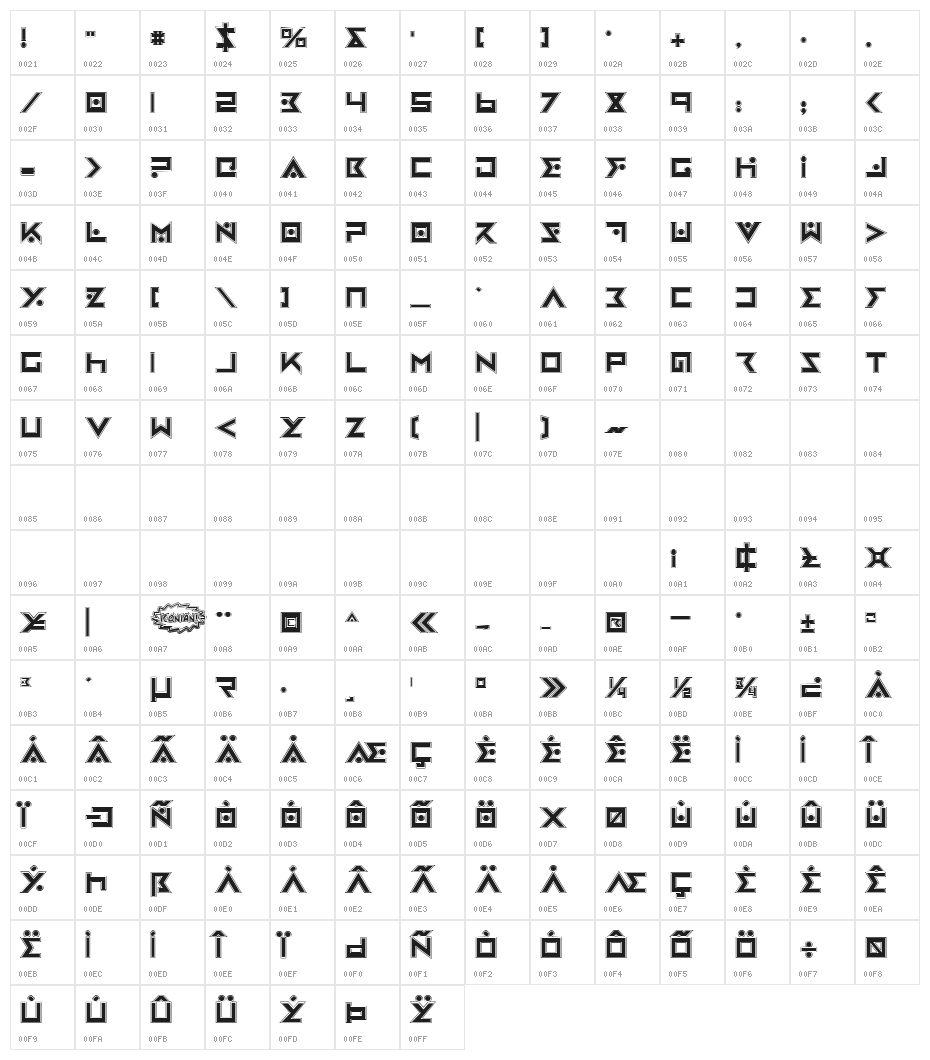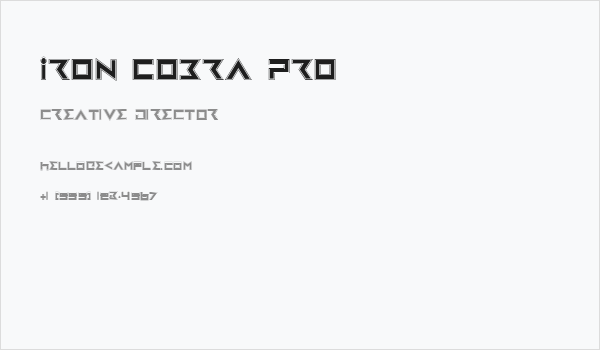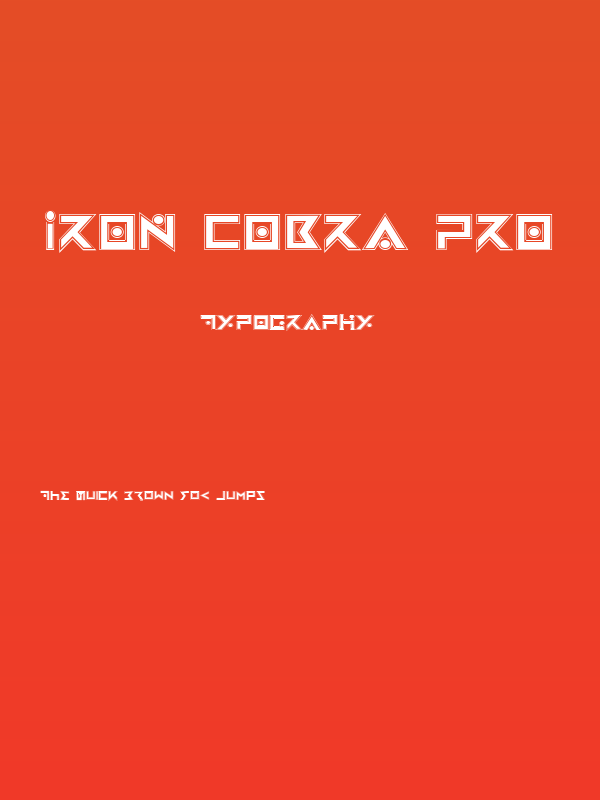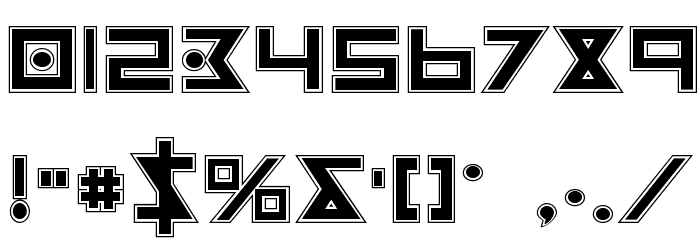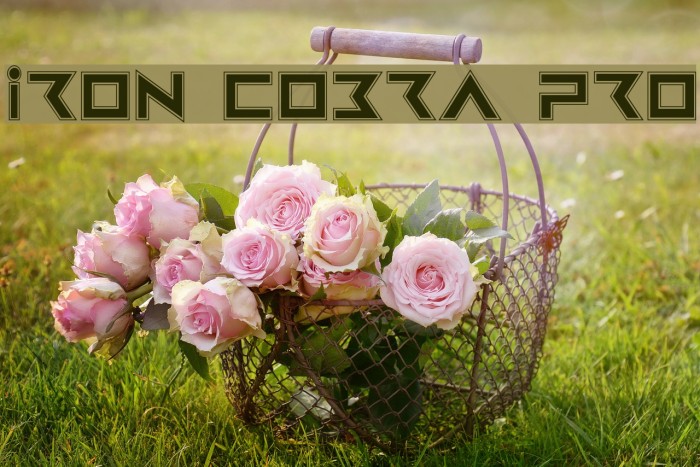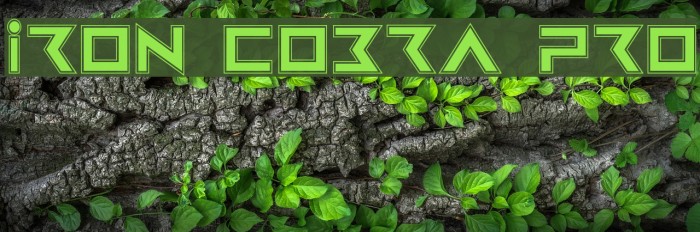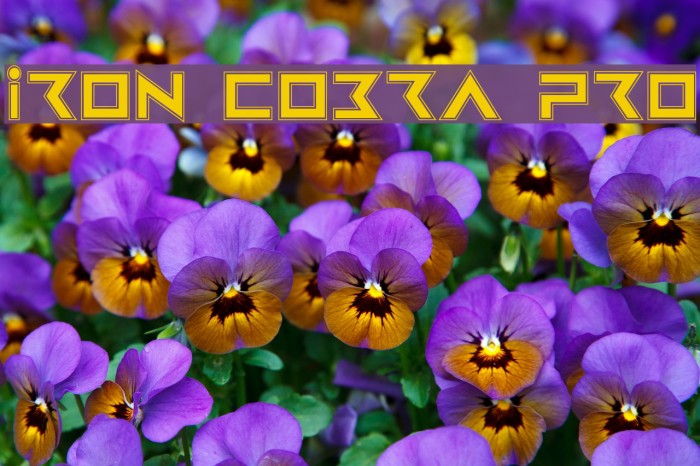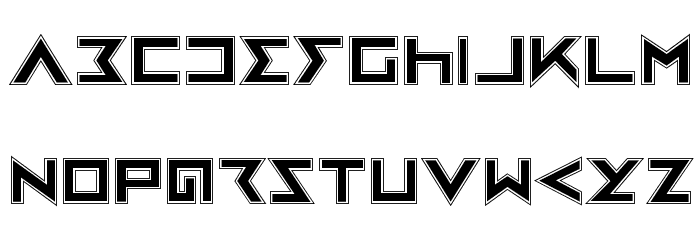
Iron Cobra Pro Font
Iron Cobra Pro Description
This font features a bold, geometric design with sharp angles and distinct, futuristic elements. Each character is crafted with a unique blend of straight lines and circular accents, creating a dynamic and edgy appearance. The uppercase and lowercase letters maintain a consistent style, while the numbers and special characters integrate seamlessly with the overall aesthetic. The font's structure is reminiscent of sci-fi themes, making it ideal for projects that require a modern and technological feel. Its boldness and distinctive style ensure high visibility and impact.
| Overall Style | Futuristic, Modern |
| Proposed Projects | Ideal for sci-fi themed projects, video game titles, tech branding, and modern posters. |